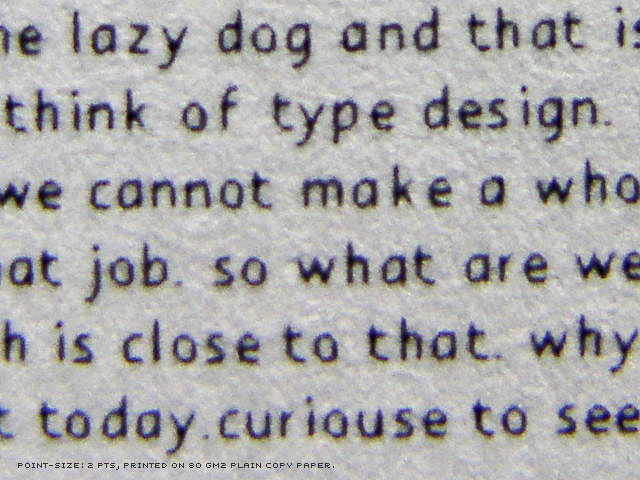
![]() day 1 : day 2 : day 3 : day 4 : day 5 final result thin group and tiny group ![]() The tiny-group went nuts with their font. Because the other group was dedicating their project to the squirrel, this group called their font 'Nuts' and presented this in a little booklet about the squirrel who doesn't get feeded anymore. On the last day of the workshop another high resolution film was made in the morning. Based on yesterday's film, some corrections have been made to the font. Is it legible in small sizes? Yes. Could it be more? Probably, but time is killing us. We have to put the font to an end and start presenting it. A very tiny 16 page booklet was made, not only to present the 'Nuts' font, but also to tell some personal experiences of the local squirrel. And a cute mascotte for this whole workshop was made. You wanna know all about the squirrel? Here is a PDF which tells the real story. Try to print it at your own printer, and see if your printer can handle this type at 3 pts. It was a long long day, the books got finished at nine o'clock in the evening; time for pizza, beer and of course some nuts! ![]() ![]() ![]() 2 comments so far: read comments